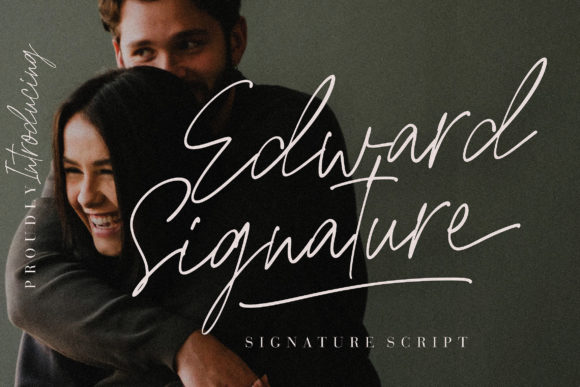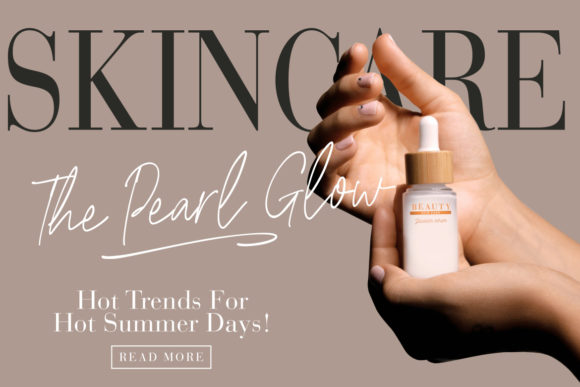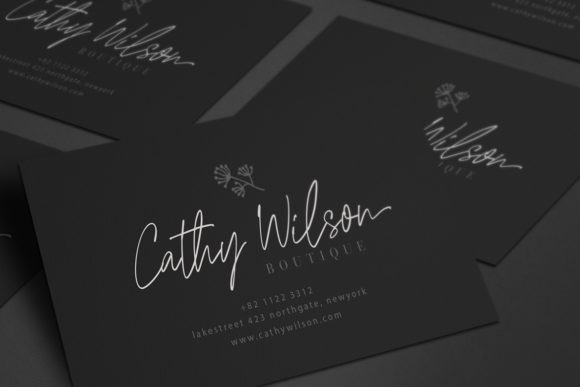
About Edward Signature Font
Edward Signature is an elegant script font with a contemporary atmosphere and impeccable form, inspired by timeless classic calligraphy. Not too thin and not too thick, balanced and varied, this font was designed to enhance the beauty of your projects. Edward Signature is PUA encoded which means you can access all of the glyphs and swashes with ease!